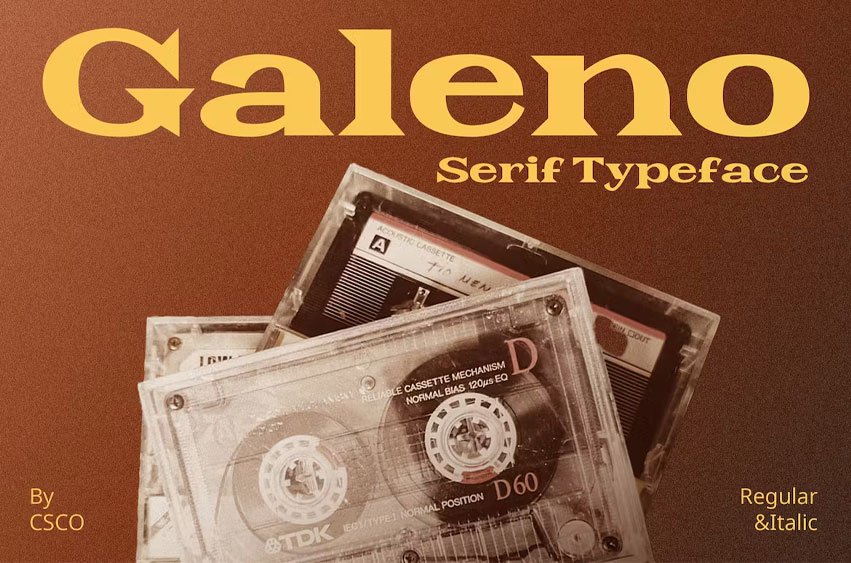
Galeno Font Expanded Serif font stands out with its unique characteristics. Its design features wide shapes, making it noticeable and impactful. This font showcases wedged serifs, adding a bold and decisive touch. Galeno’s style suits various design needs, offering versatility and appeal.
Design Features Galeno – Expanded Serif boasts a distinct wide shape. The wedges in its serifs create a strong presence. This design choice gives text a firm and assertive look. The font’s expansive style ensures readability, ideal for both digital and print formats.
Usability and Versatility Galeno is perfect for various applications, from headlines to body text. Its clear and commanding style makes it great for professional and creative projects. The font is easily legible, making it a top choice for user interfaces and educational materials. Its versatility extends to marketing materials, enhancing brand identity.
Conclusion In summary, Galeno – Expanded Serif is a robust and character-rich font. Its wide shape and wedged serifs create a bold statement. This font is suitable for diverse design purposes, fitting into professional and creative realms. Galeno is a go-to choice for designers seeking a font with presence and versatility.